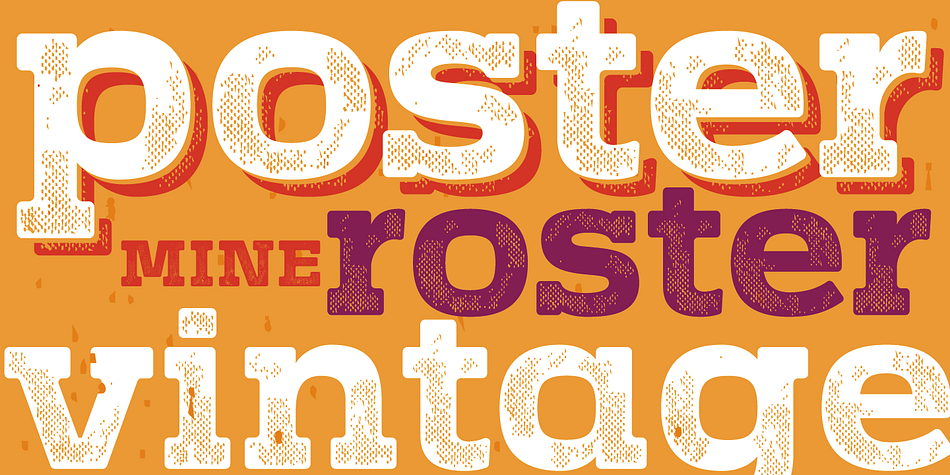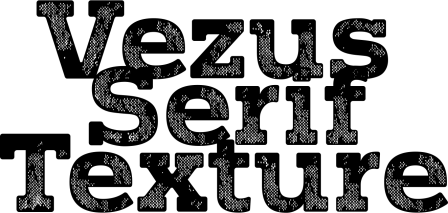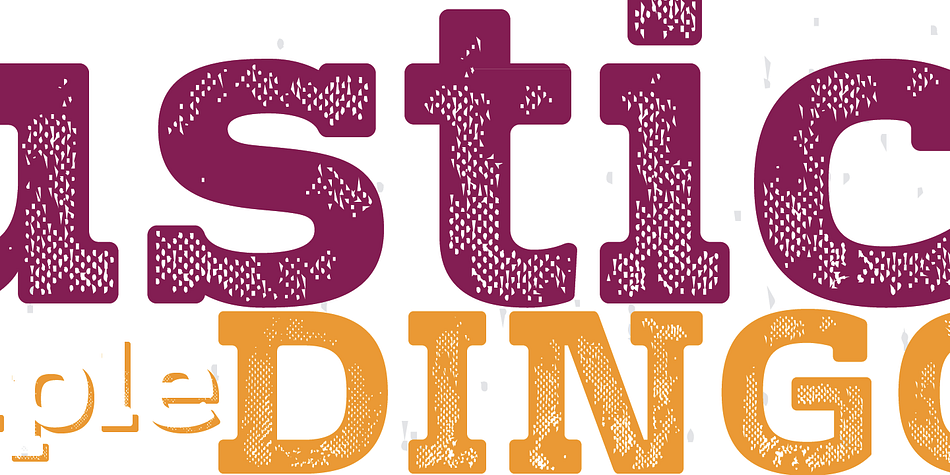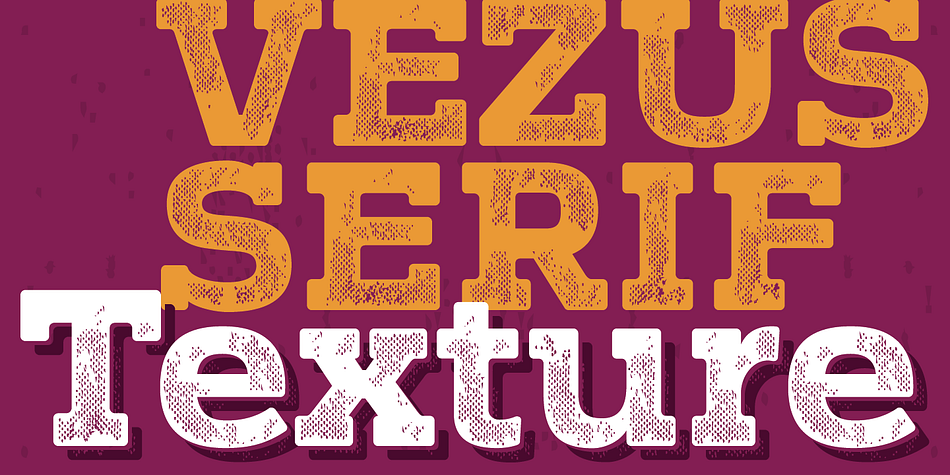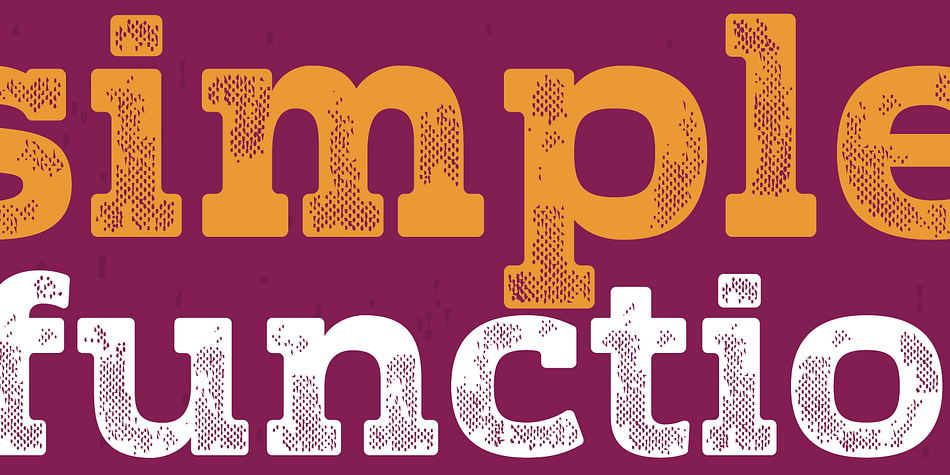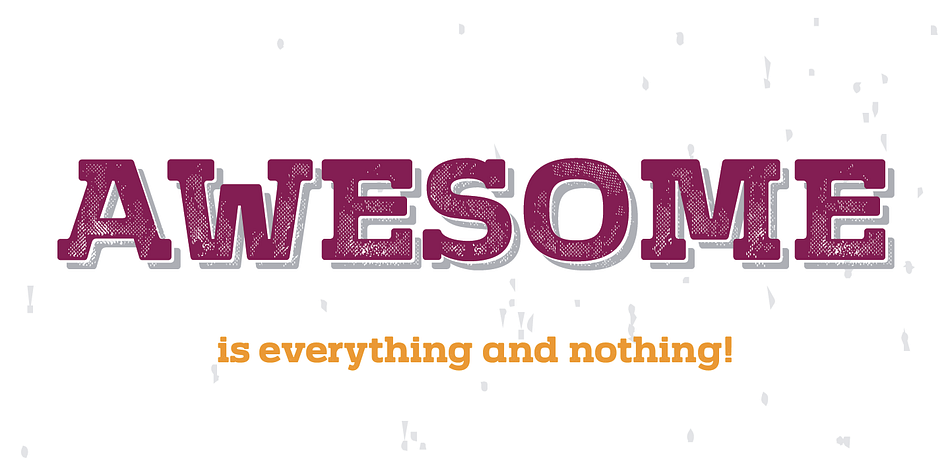
Vezus Serif Texture is a grunge and display slab font family. This typeface has two styles and was published by Tour de Force Font Foundry.
Vezus Serif Texture is as the name says itself, a textured version of the Vezus Serif font family. As that, it is compatible with Vezus Serif Black.